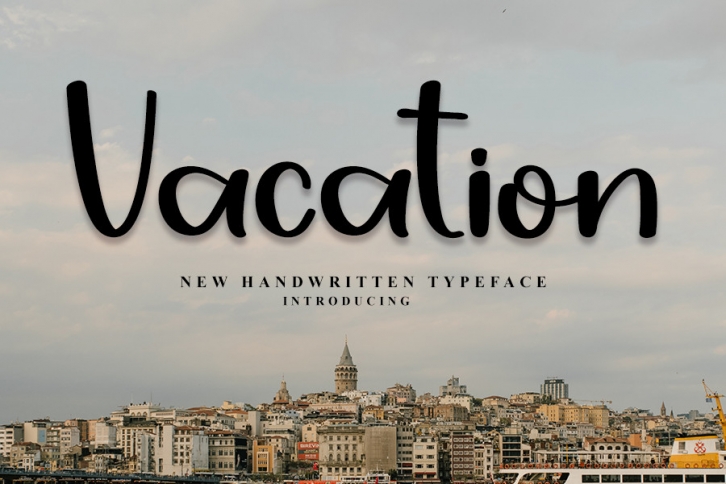
Vacation is a trendy handwritten font with a contemporary atmosphere and impeccable form, inspired by a timeless classic calligraphy. It will add elegance and class to any of your design projects.